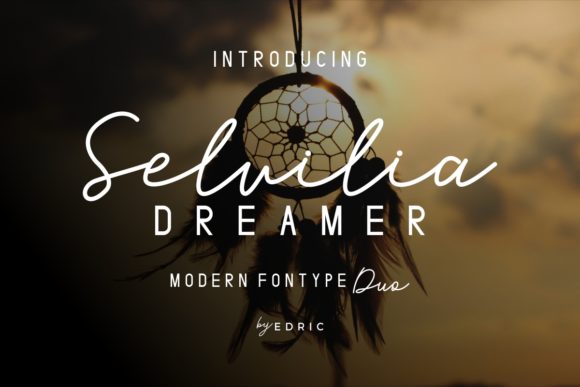
Dive into the world of typography with Selvilia Dreamer, a captivating font duo that brings elegance and poise to your creative projects. EdricStudio, the creative mind behind this masterpiece, has crafted a harmonious blend of sans and script styles that dance together in perfect unison.
Selvilia Dreamer's sans serif font exudes a clean and contemporary vibe, with its sharp lines and geometric shapes. It's the perfect choice for modern and minimalist designs, adding a touch of sophistication to logos, website headlines, and business cards.
The script font, on the other hand, is a work of art, with its flowing curves and delicate swashes. It's reminiscent of handwritten letters, evoking a sense of warmth and intimacy. Use it to add a personal touch to your wedding invitations, greeting cards, or social media posts.
Together, these two fonts create a dynamic duo that can elevate any design project. Whether you're working on a branding campaign, a website redesign, or simply want to add some flair to your social media posts, Selvilia Dreamer has got you covered.
So why settle for ordinary fonts when you can have the extraordinary? Embrace the beauty of Selvilia Dreamer and unleash your creativity today!